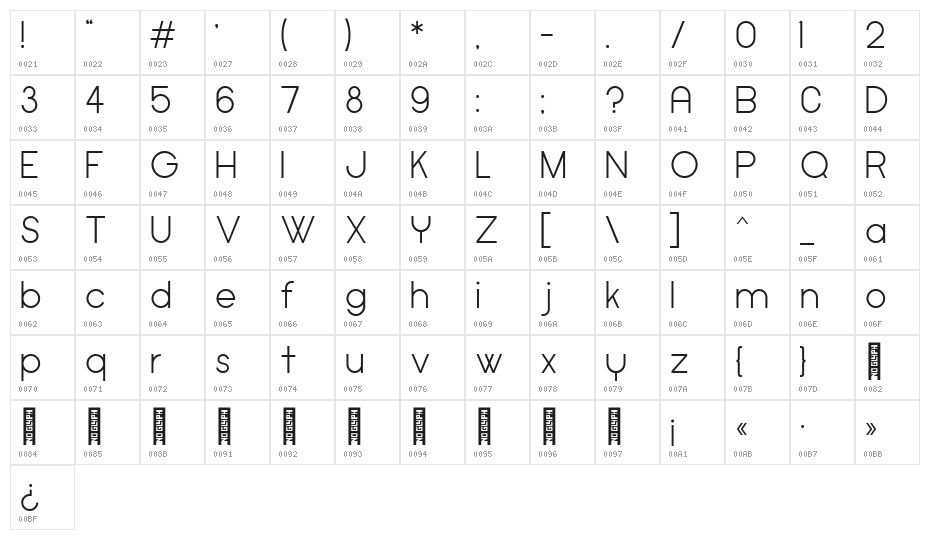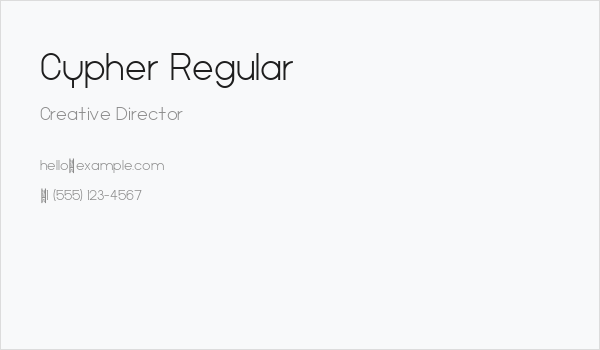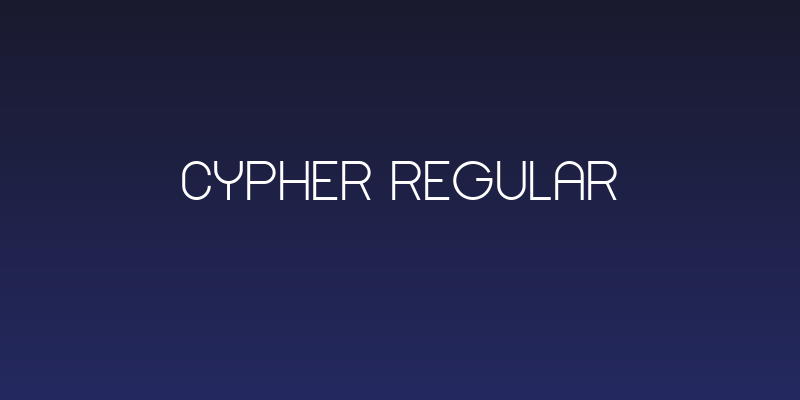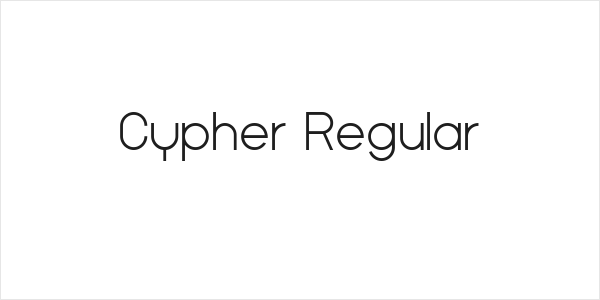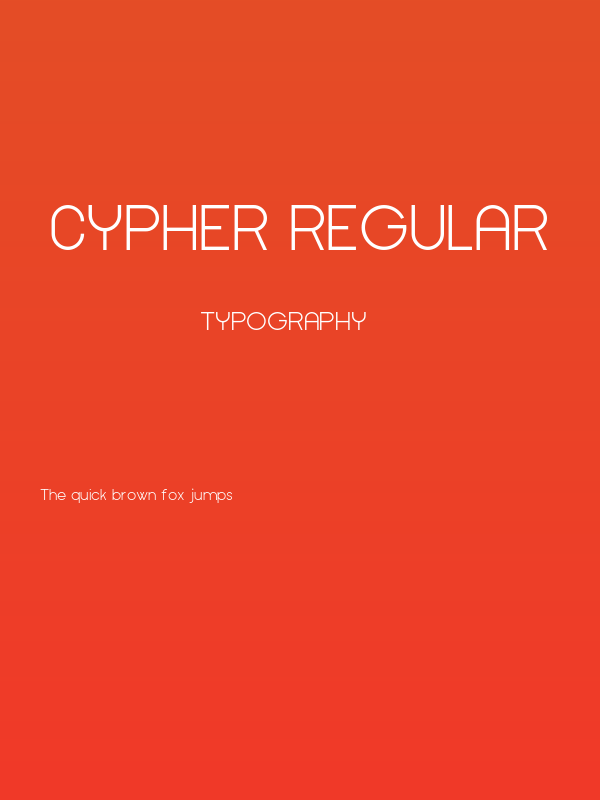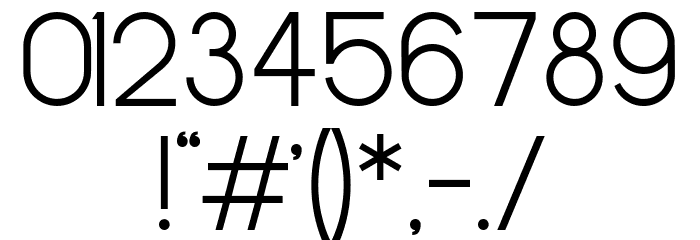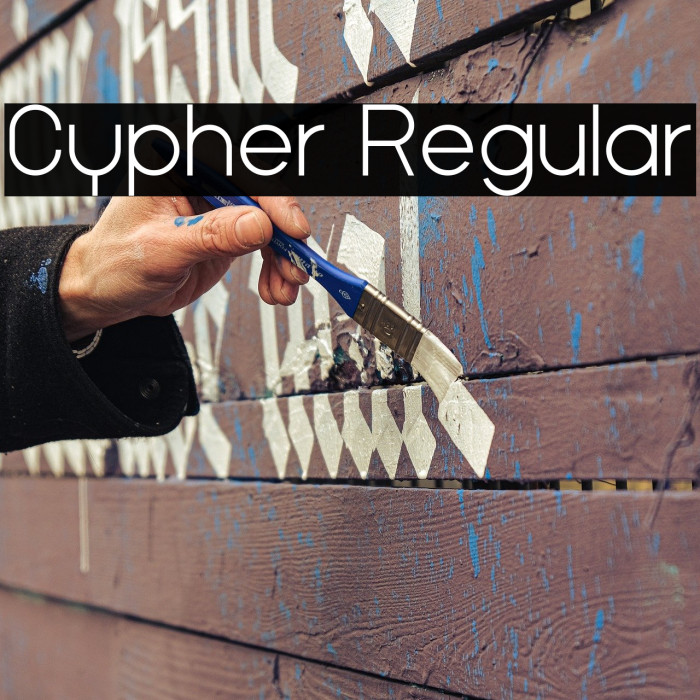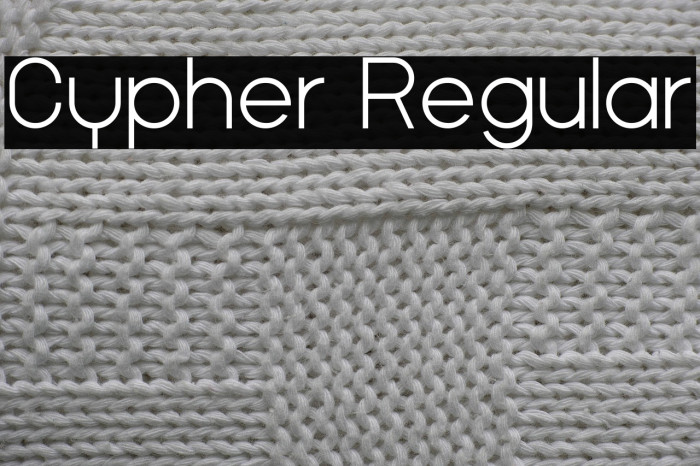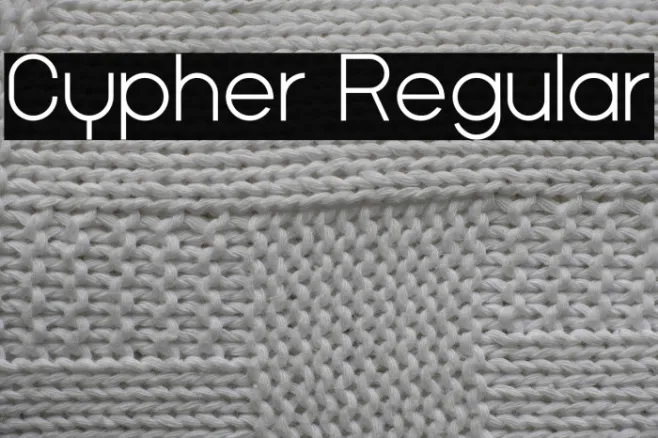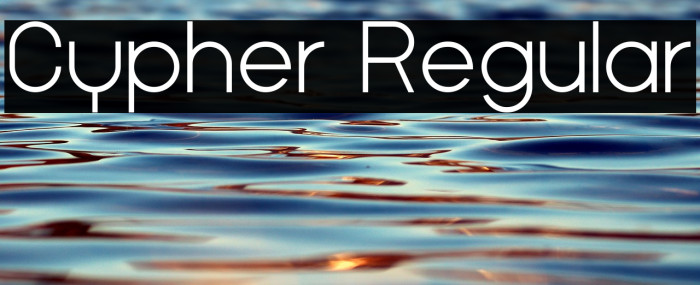
Cypher Regular Font
Cypher Regular Description
This font features a clean and modern sans-serif design with geometric shapes and uniform stroke widths. The uppercase letters are tall and slightly condensed, while the lowercase letters maintain a consistent roundness, giving the font a harmonious appearance. The numerals are clear and legible, matching the overall style of the alphabet. Special characters are well-integrated, maintaining the font's minimalist aesthetic. The font's simplicity and clarity make it versatile for various design applications.
| Proposed Projects | Ideal for branding, web design, advertising, and editorial layouts where a modern and clean look is desired. |